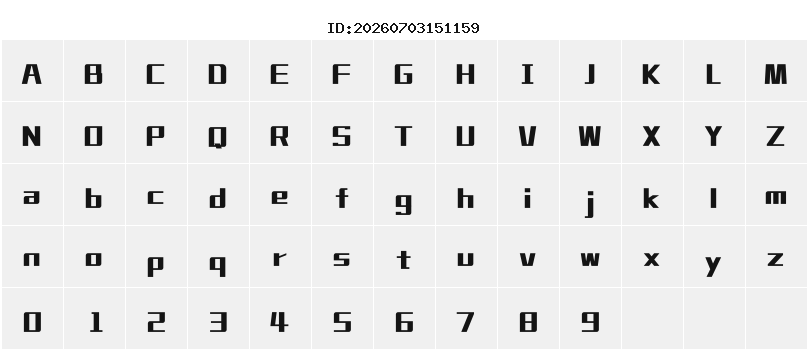
• Font Name: 111-上首方舟体
• Font ID: 111-SSFangZhouTi:Version 1.30
• Full Font Name: 111-上首方舟体
• Version: Version 1.30 December 25, 2023
• PostScript Name: 111-SSFangZhouTi
• Character Count: 7569
• Manufacturer: 上首造字
About 111-上首方舟体.ttf
111-上首方舟体.ttf is a modern, elegant sans-serif font designed for ultimate readability and visual harmony. Perfect for branding, headlines, web design, and print materials.